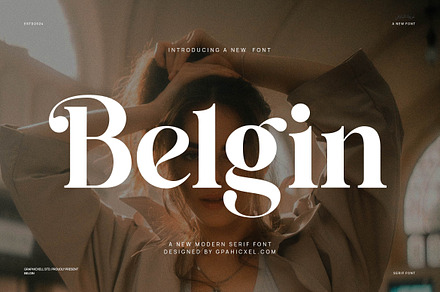
Belgin Elegant Ligature Serif Font
An elegant ligature serif where joined character pairs add flourish to an otherwise restrained letterform set.
Ligatures let a face be quiet by default and decorative when the letters happen to combine, which gives variation without inconsistency.
- Extensive ligature set
- Alternates included
Ideal for
- Wedding and event stationery
- Luxury packaging and labels
- Logo and wordmark design
- Editorial and print